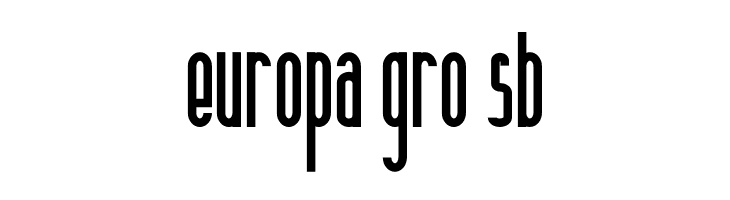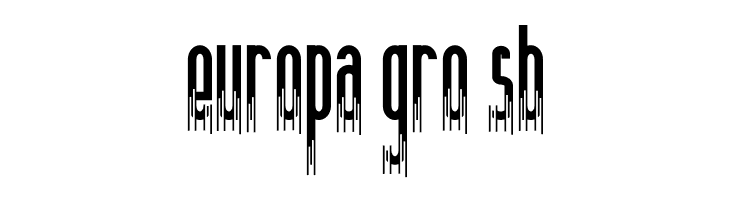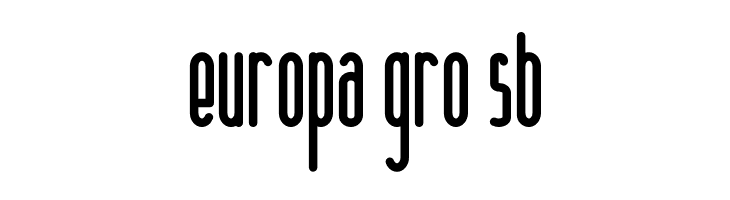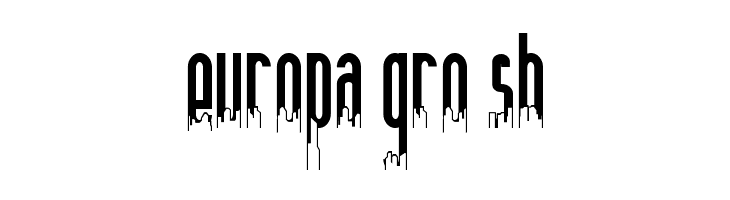
A bold, geometric font with a blocky, industrial design.
A bold, artistic font with irregular shapes and a modern flair.
A tall, narrow, and modern condensed font with uniform stroke width.
A modern, condensed typeface with a sleek, elongated design.
A decorative font with elongated, dripping vertical lines for a dynamic look.
A modern, rounded font with a sleek, condensed design.
A modern, decorative font with a city skyline motif integrated into tall, narrow letterforms.
A dynamic font with elongated vertical lines and a dripping effect.
A modern, rounded font with elongated, narrow letterforms and smooth curves.
A modern, skyline-inspired font with tall, narrow characters and high contrast.